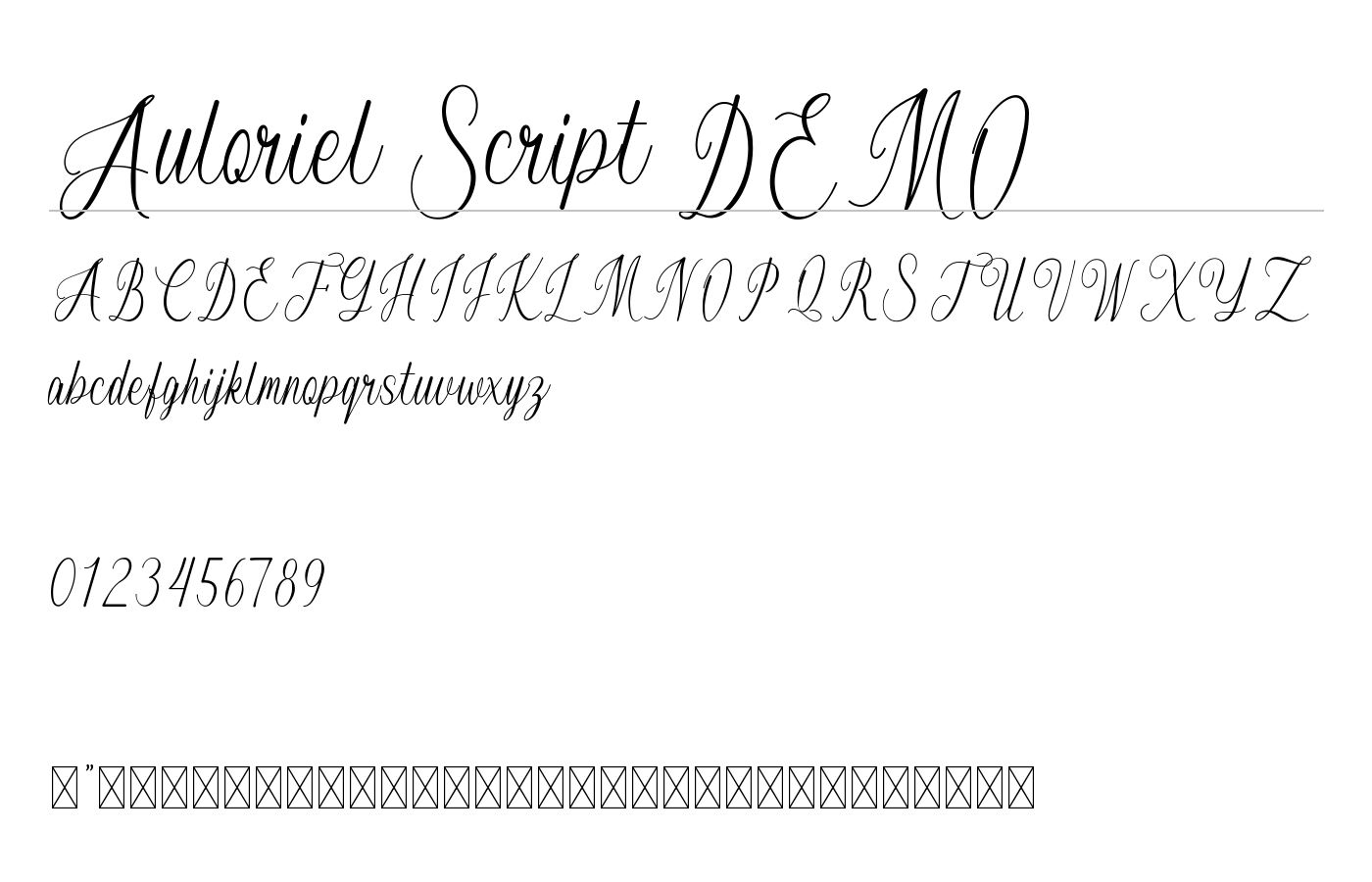
Auloriel Script DEMO is a delicate, elegant script font featuring fine, flowing lines and graceful letterforms with high contrast between thin strokes. Its tall, slender characters and sophisticated cursive style convey a refined, romantic personality, making it ideal for wedding invitations, luxury branding, and feminine editorial designs. This font works best in headlines or decorative use where an elegant, handcrafted look is desired.
Auloriel Script DEMO Font
About Auloriel Script DEMO Font
| Font family | Auloriel Script DEMO Font |